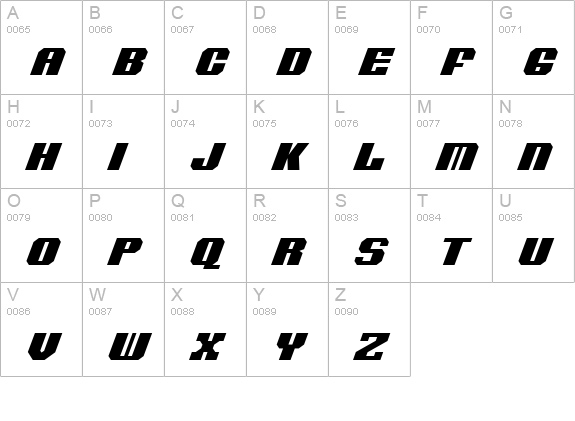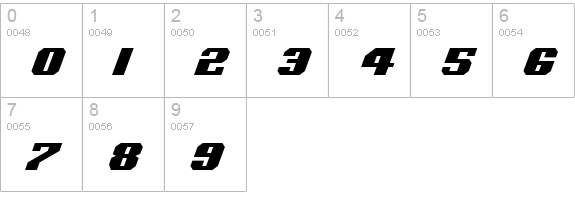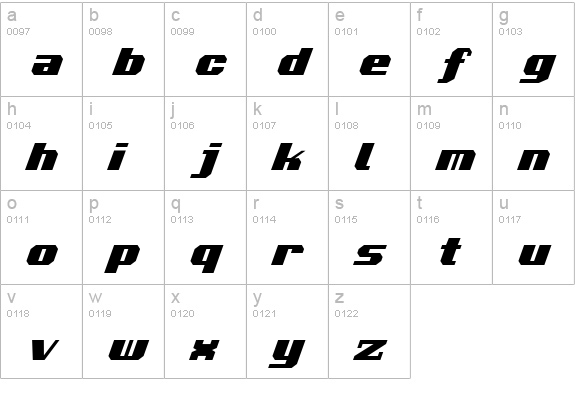
Voortrekker Italic is a distinctive, italic variant in the Voortrekker typeface family \xE2\x80\x94 well suited to design and typography projects.
Voortrekker Italic font is a beautifully crafted typeface that exudes elegance and sophistication. Its sleek and stylish design makes it perfect for adding a touch of class to any project. The italicized letterforms of Voortrekker Italic font bring a sense of fluidity and dynamism to your text, making it stand out and capture attention. What's even better is that Voortrekker Italic font is completely free to download! You can get your hands on this stunning typeface at FontsMarket.com without spending a dime. Whether you're working on a professional design project or simply looking to enhance your personal creations, Voortrekker Italic font is sure to elevate your work to the next level. Don't miss out on this fantastic opportunity to access a high-quality font for free!